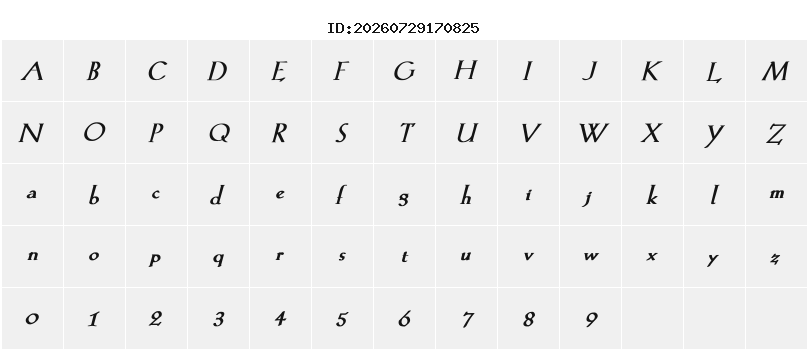
• Font Name: KochRoman
• Full Font Name: KochRoman Bold Italic
• PostScript Name: KochRoman-BoldItalic
About KochRoman.ttf
KochRoman.ttf is a modern, elegant sans-serif font designed for ultimate readability and visual harmony. Perfect for branding, headlines, web design, and print materials.